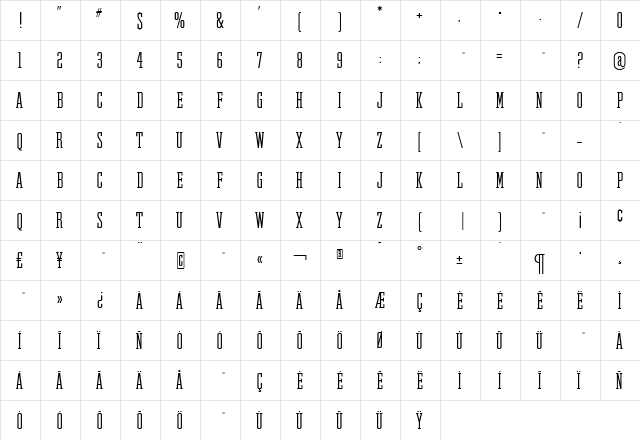
GrandCanyonRR Light Regular
Design Context for GrandCanyonRR Light Typeface
GrandCanyonRR Light is a composed and adaptable typeface that performs quietly and consistently across a wide range of design contexts. Its slender proportions lend an understated elegance to any composition.
Pro Tip: Use GrandCanyonRR Light in both headline and body roles to test its range before committing to a single application.